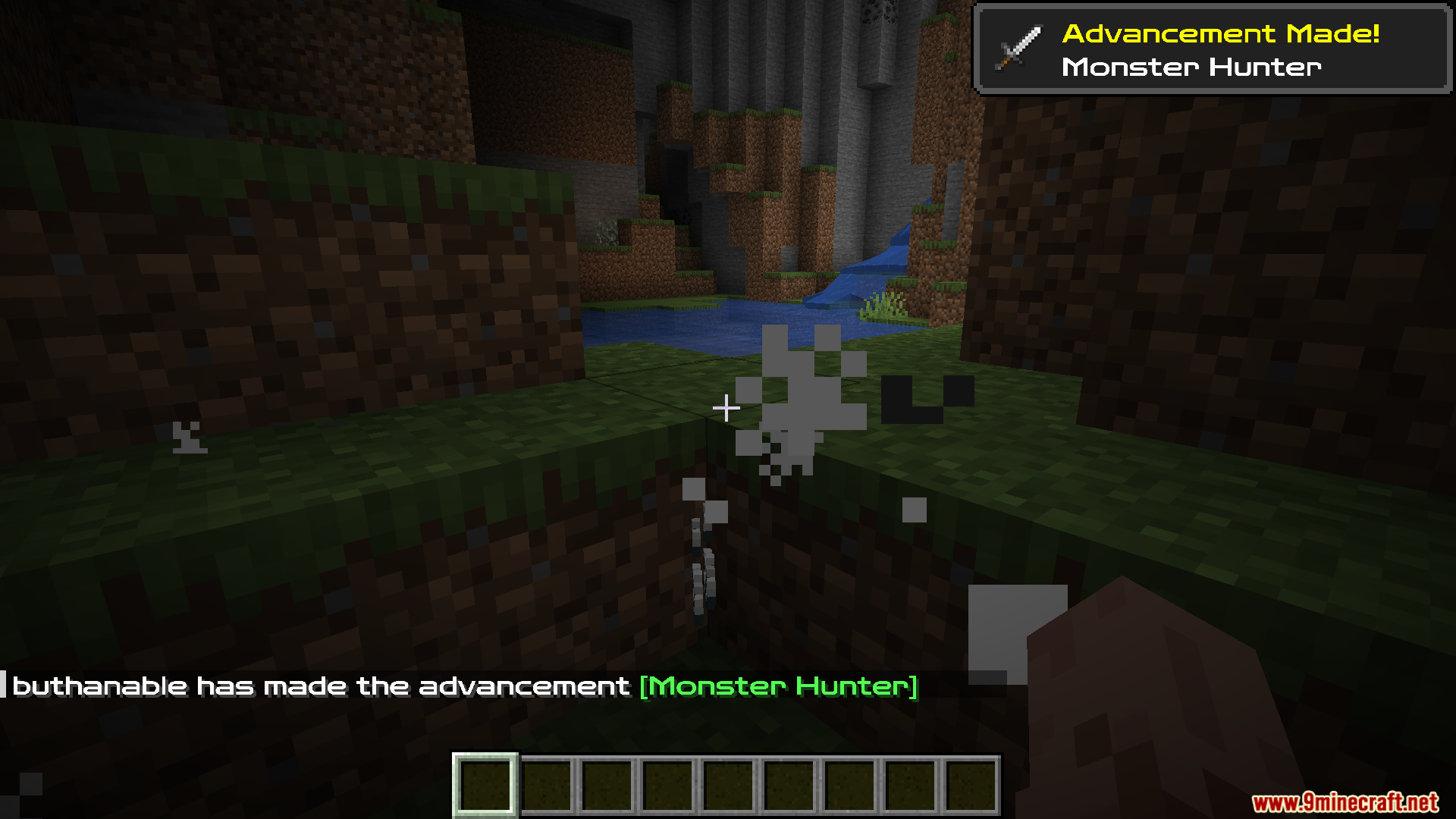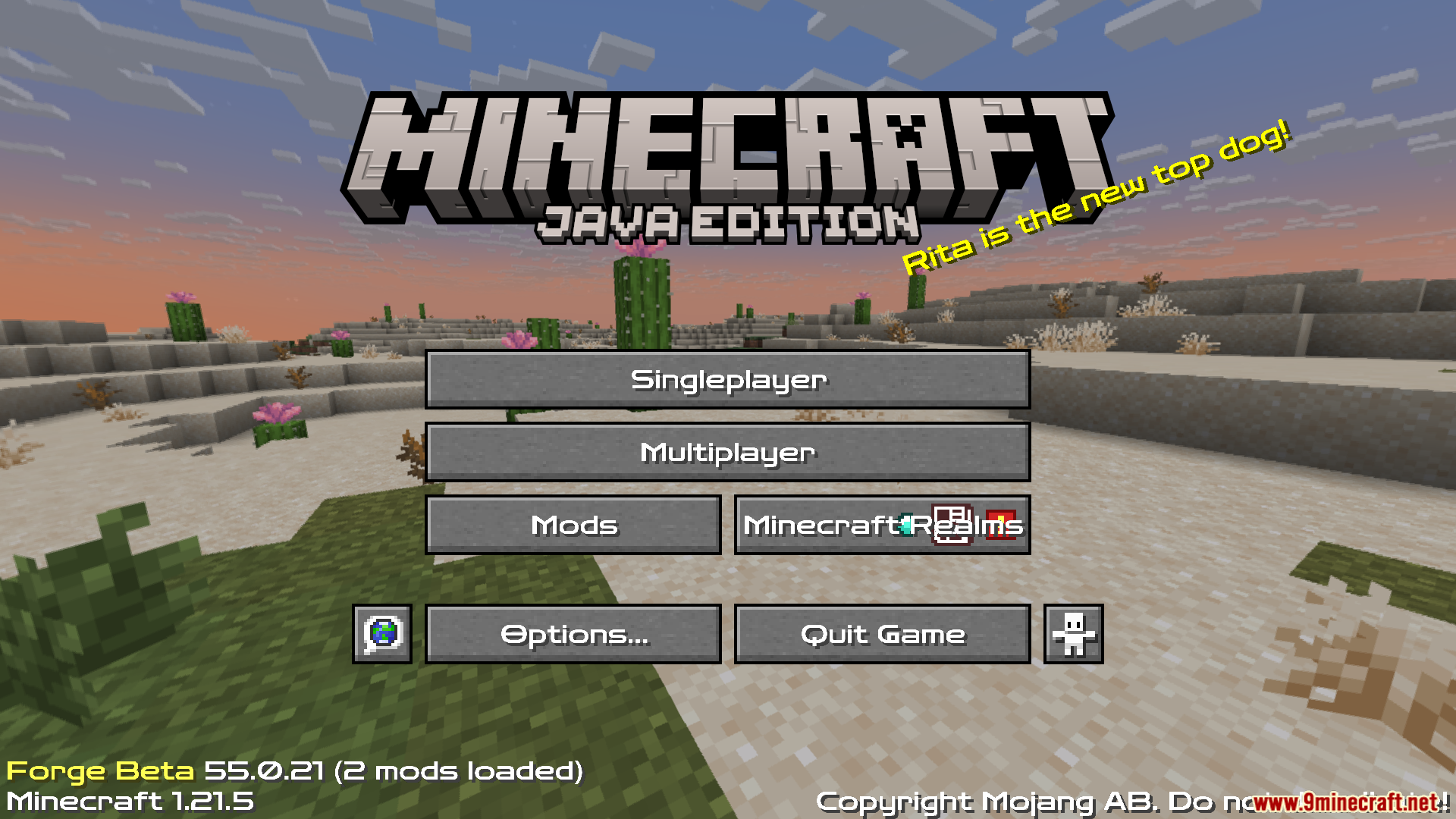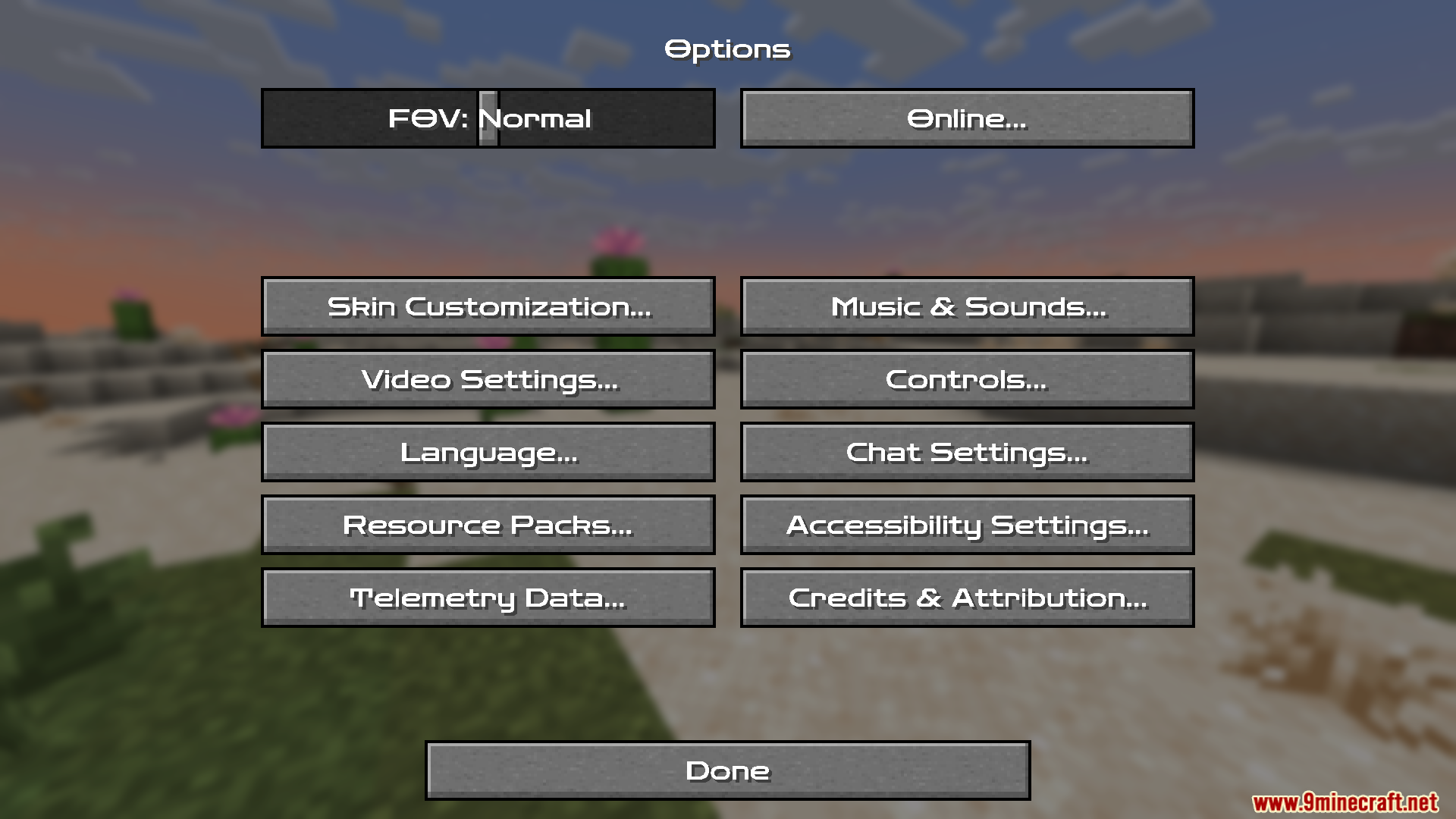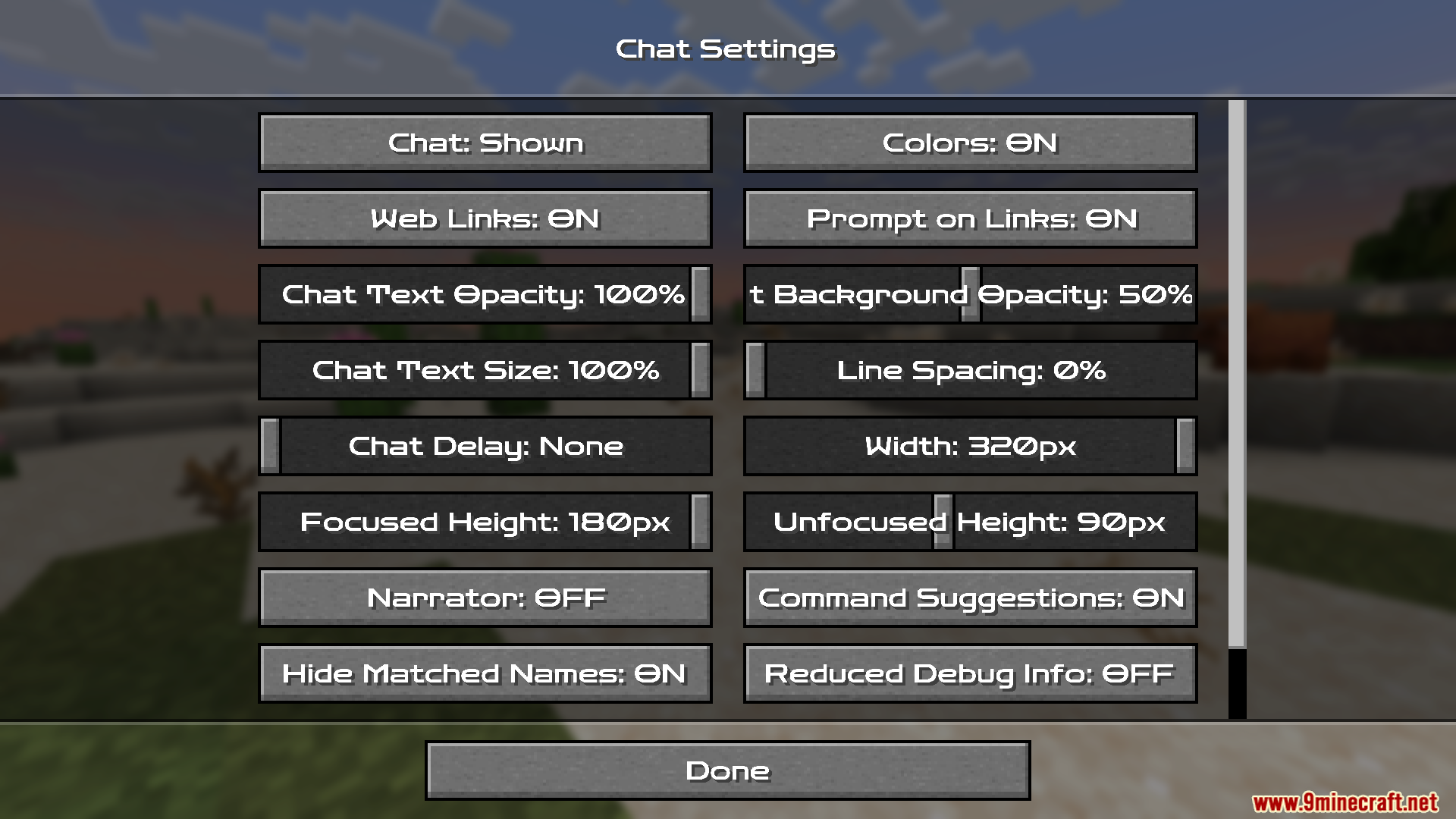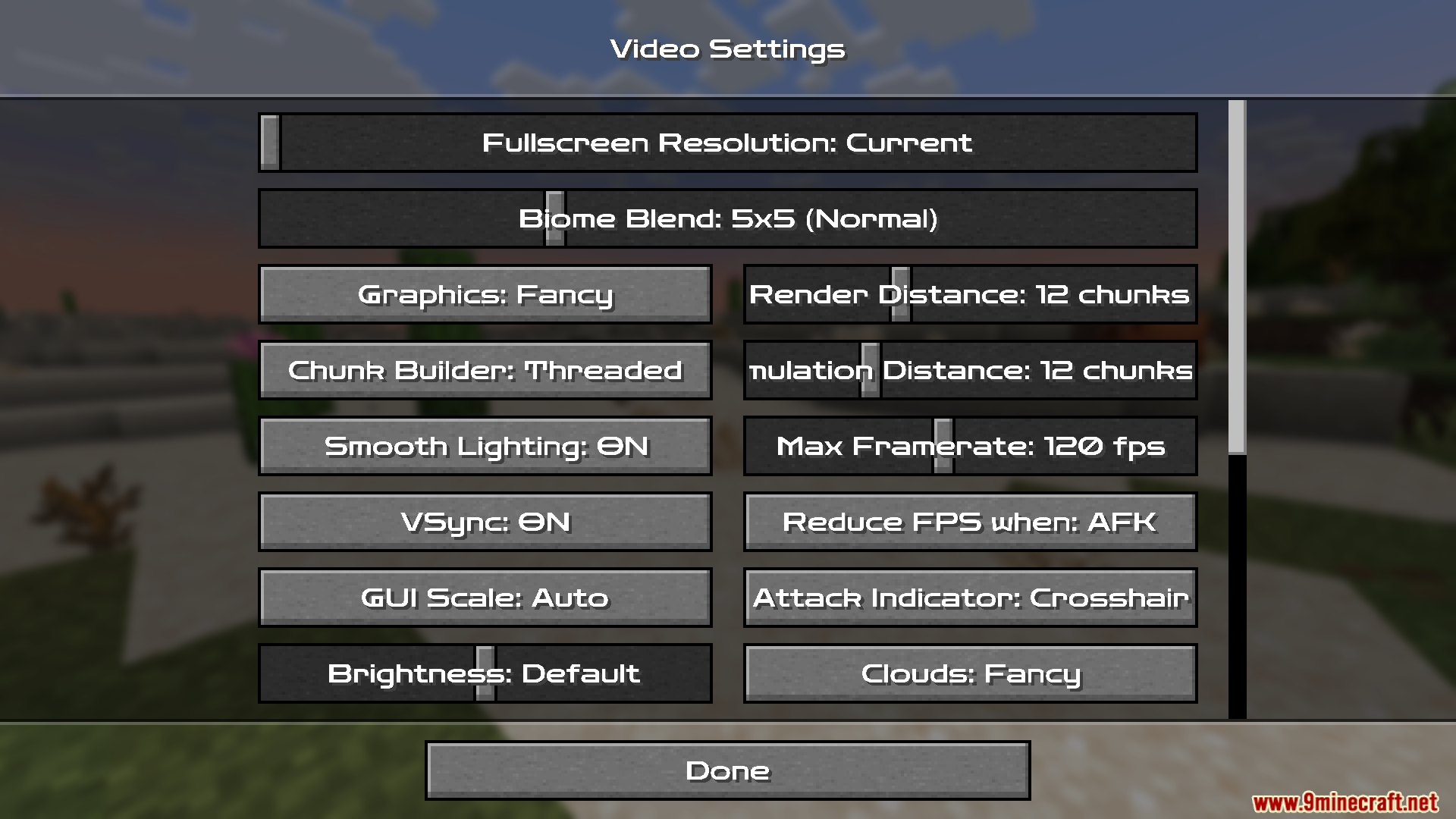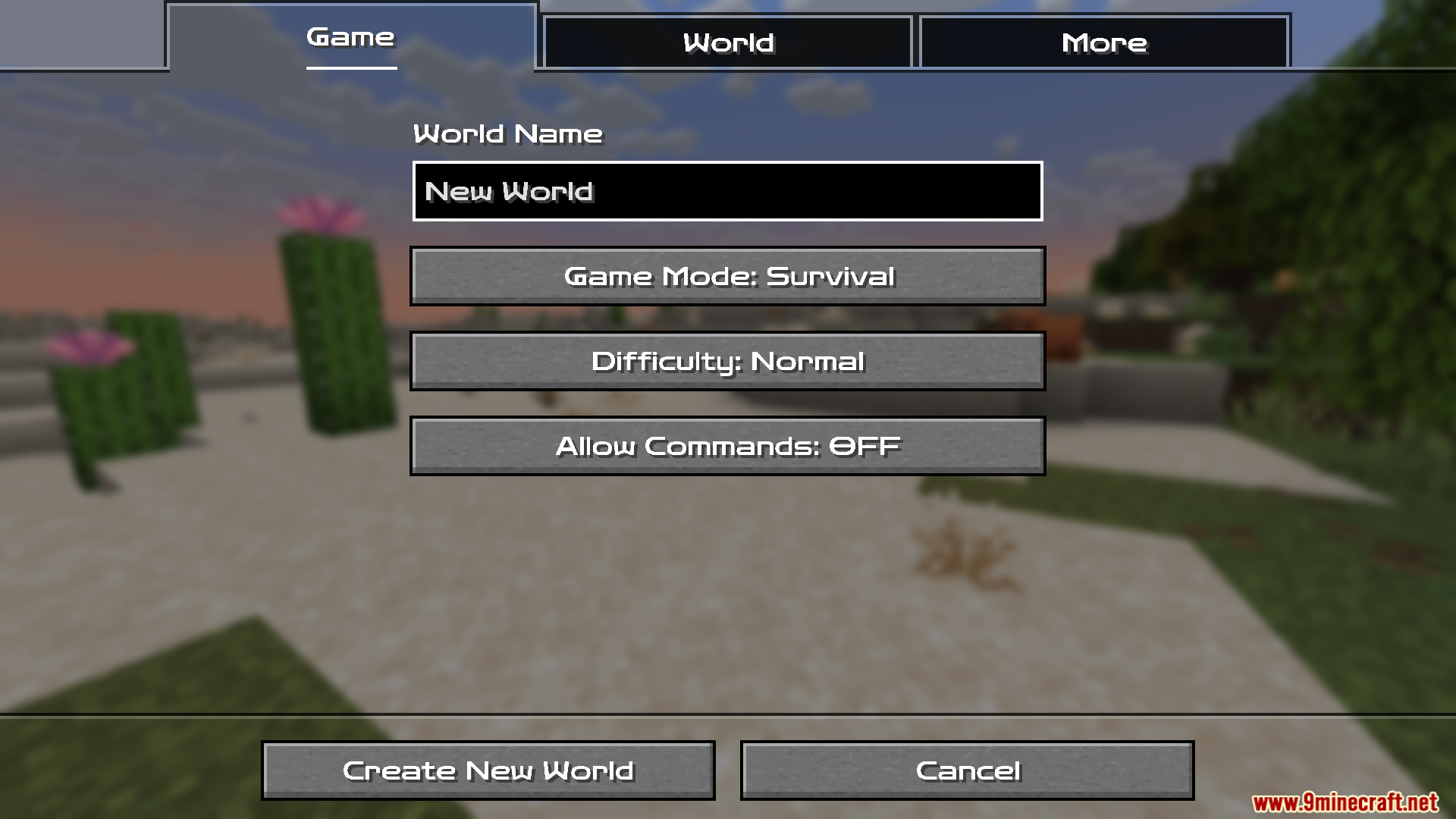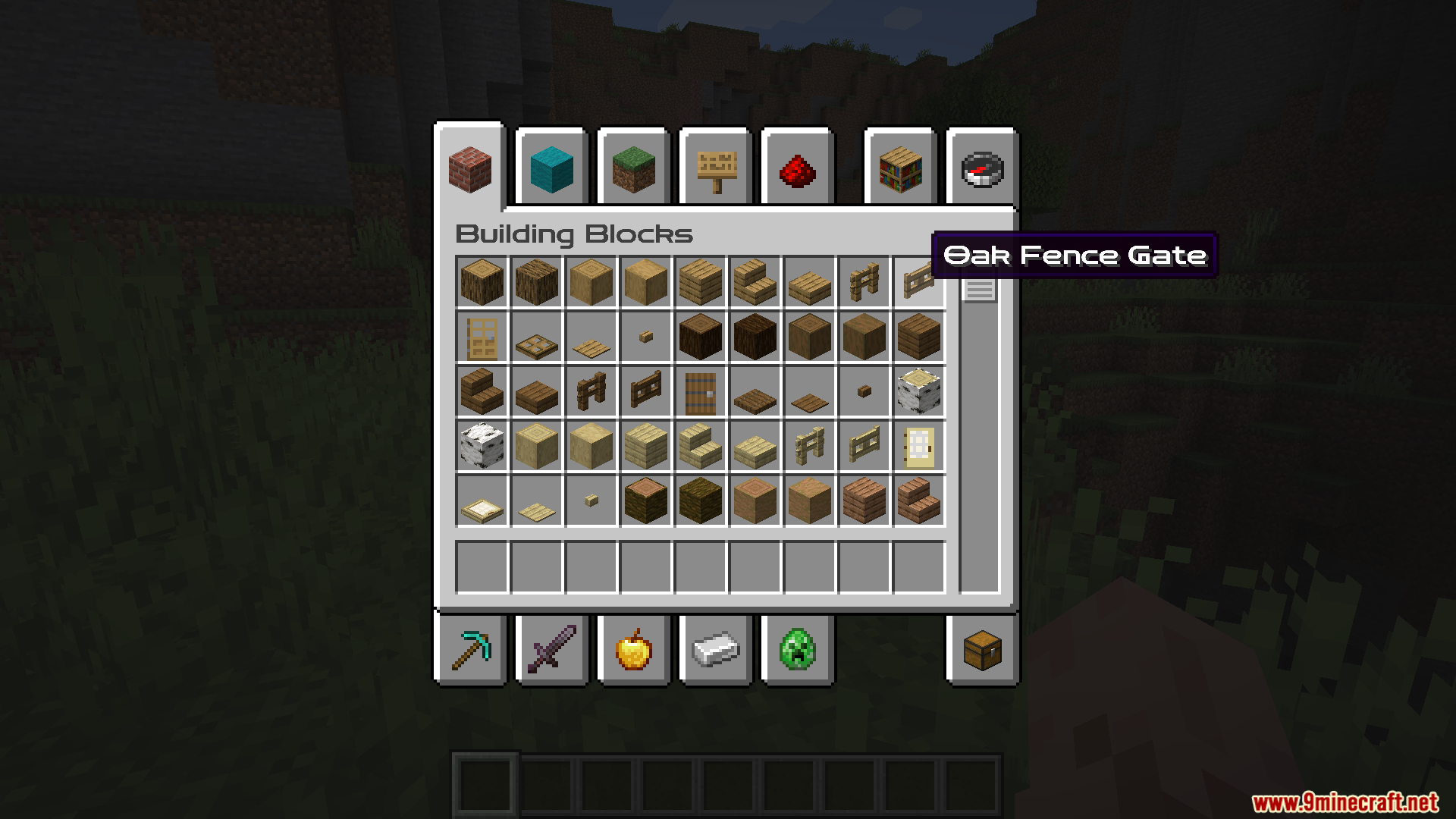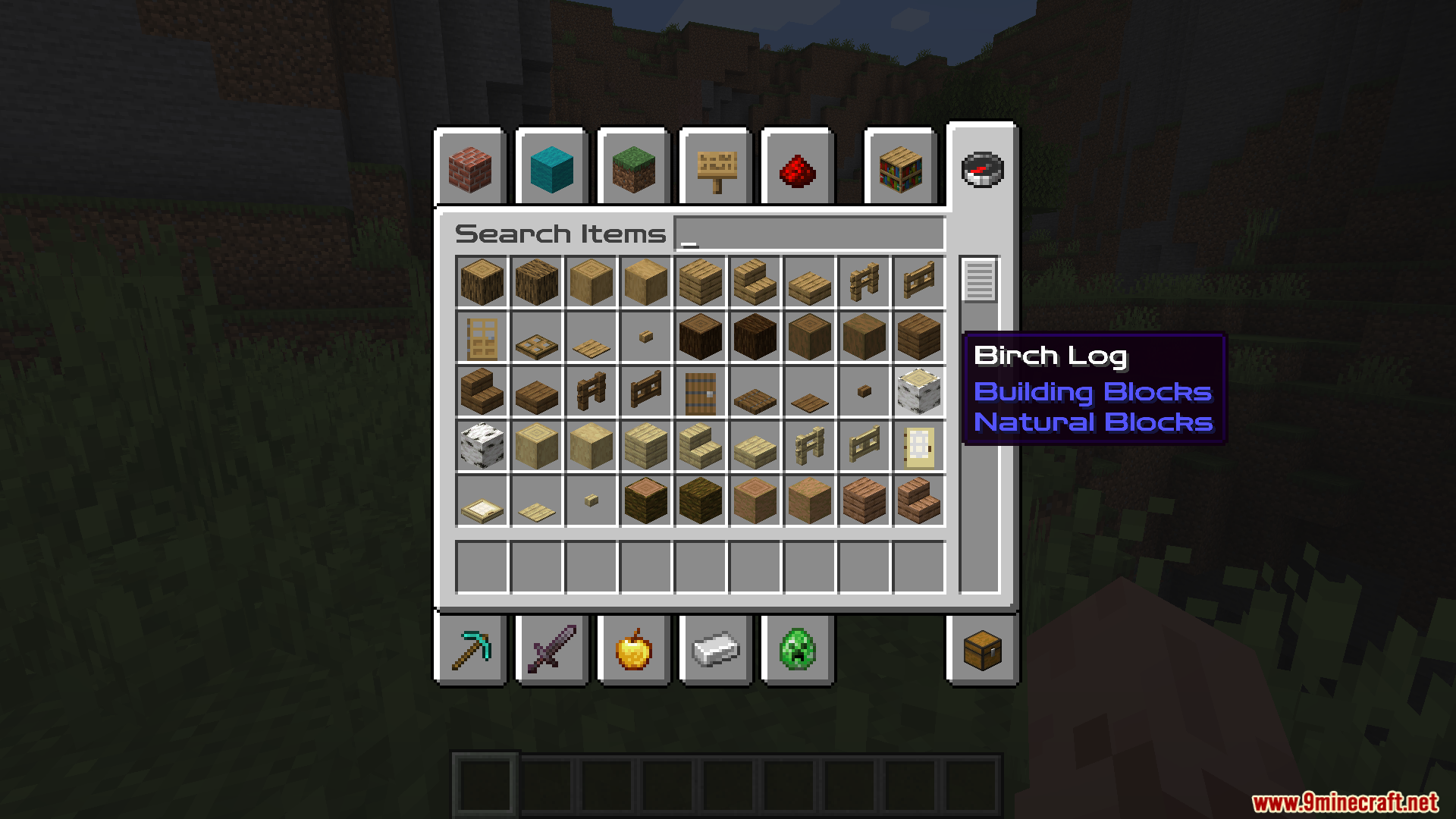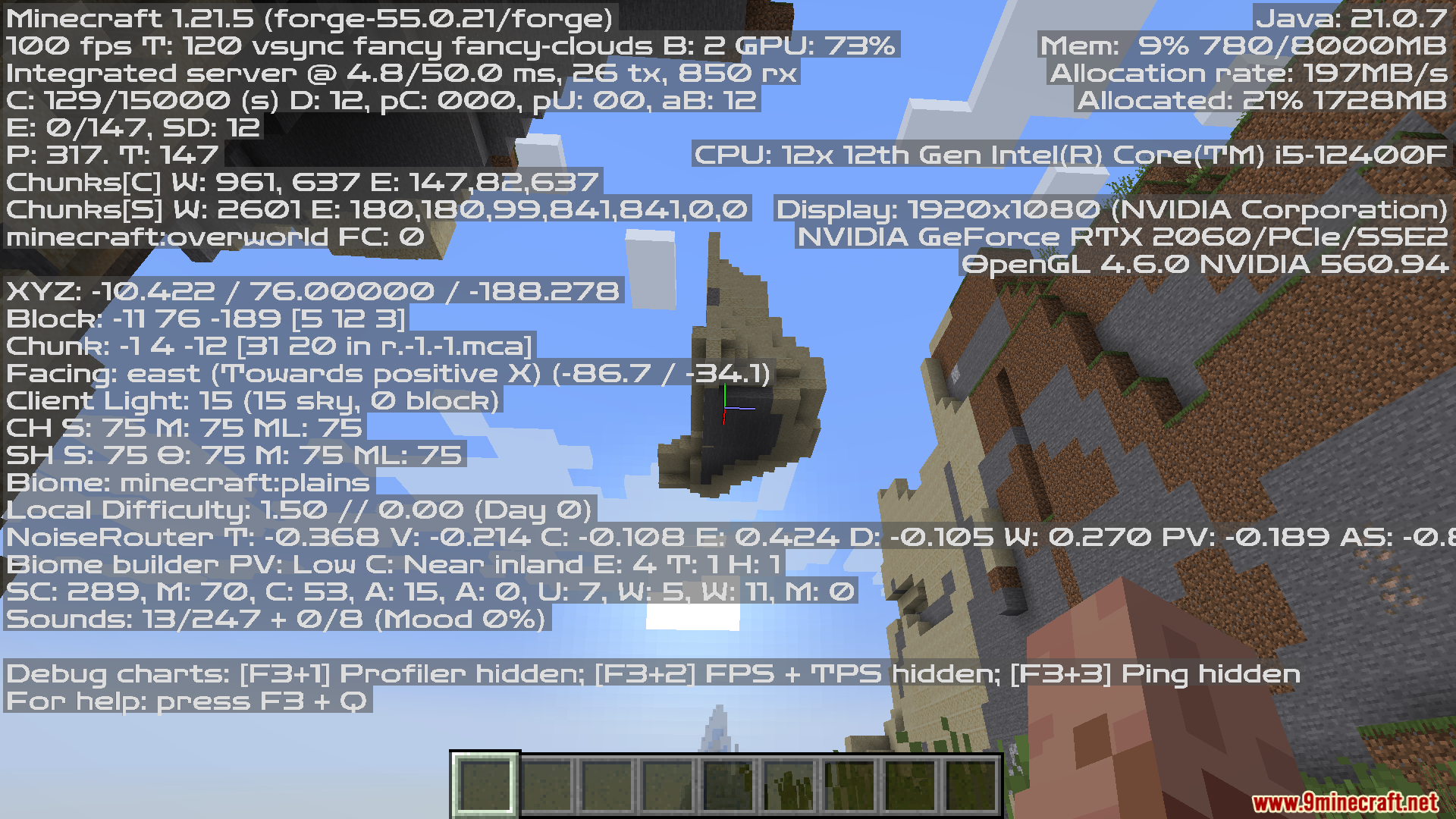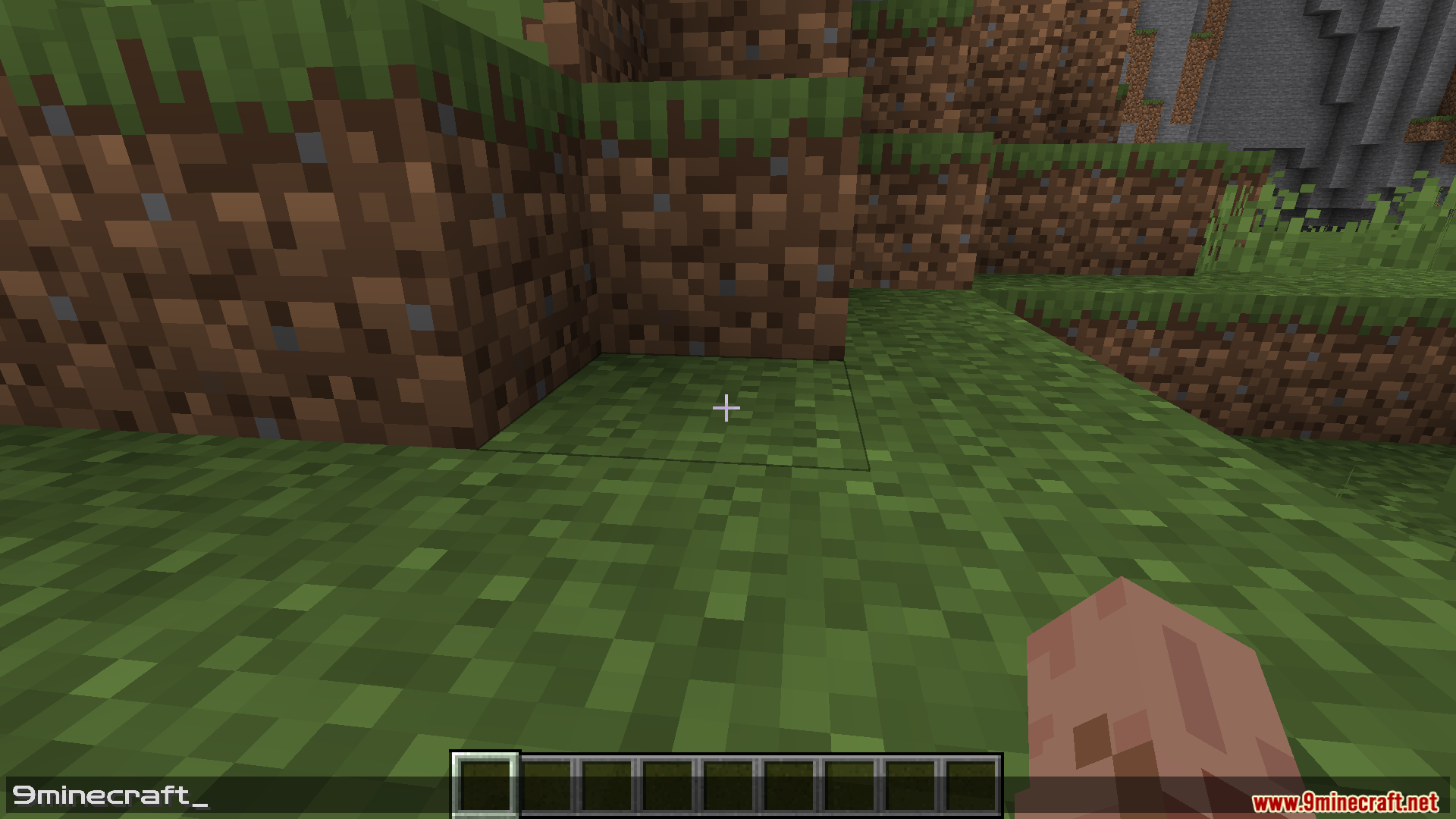
Zen RPG Font Resource Pack (26.1.2, 1.20.1) – Texture Pack
Zen RPG Font Resource Pack replaces the default in-game text with a sleek, sans-serif style. Designed for readability and aesthetics, it provides a calm, modern look to menus, chat, and tooltips without altering any textures or gameplay elements.